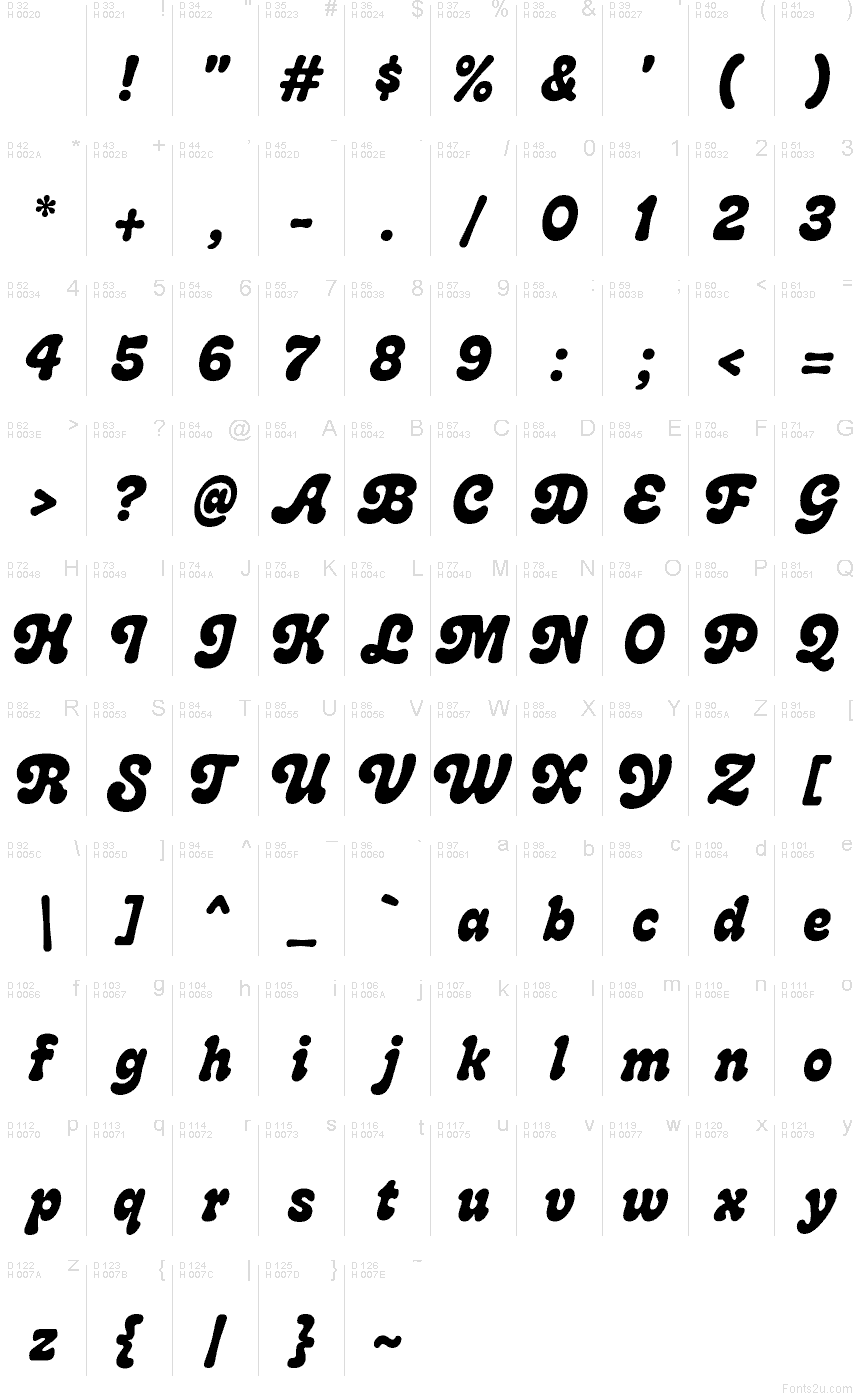
Melt Swashes
Melt Swashes font by Ilham Herry is a free groovy display typeface that looks like it’s been poured onto the page, then frozen mid-splash. Thick, inky strokes swell and taper into syrupy swashes, giving every word a plush, almost bubble-letter feel. The curves are confident yet soft, so compositions feel playful and bold rather than shouty, with a smooth rhythm that pulls the eye along each word.
Using Melt Swashes, letters feel like candy—chunky, glossy, and impossible to ignore. This free font shines on retro branding, bold logos, packaging, event posters, social media covers, merch, and statement headlines. It works beautifully when set large and given room to breathe; pair it with a clean geometric sans for body text to keep layouts balanced and readable while Melt Swashes does the loud, joyful talking.